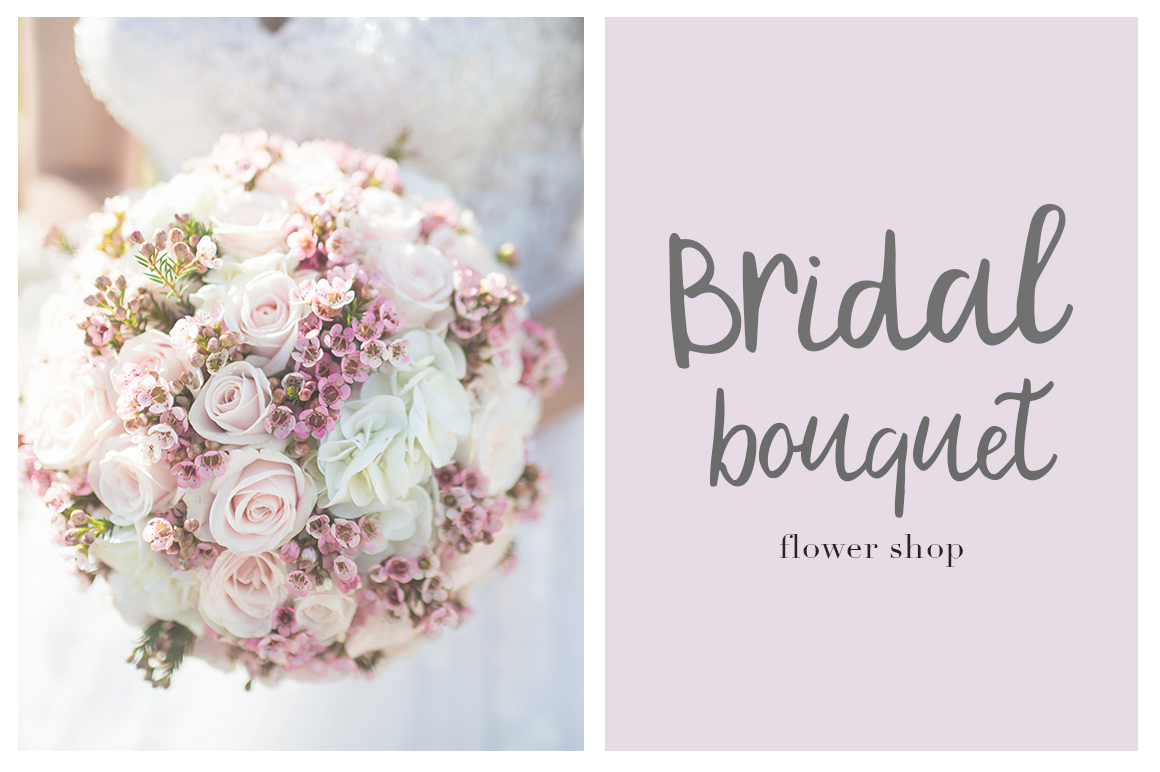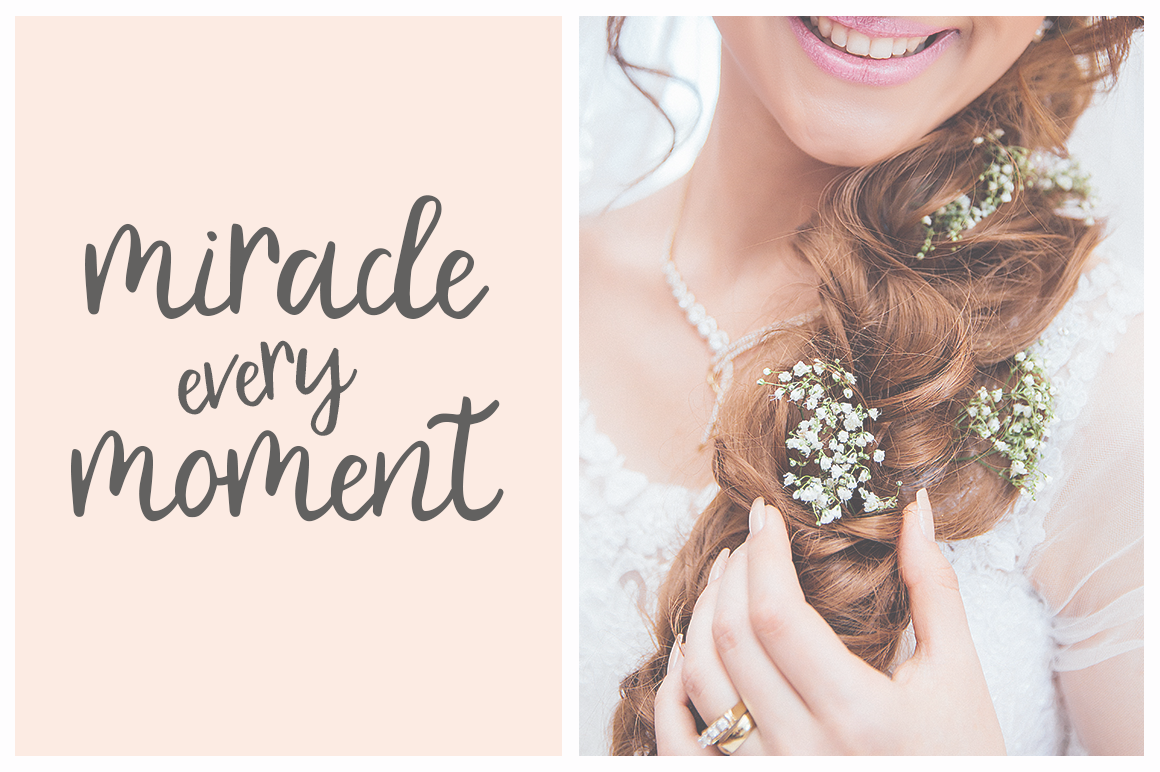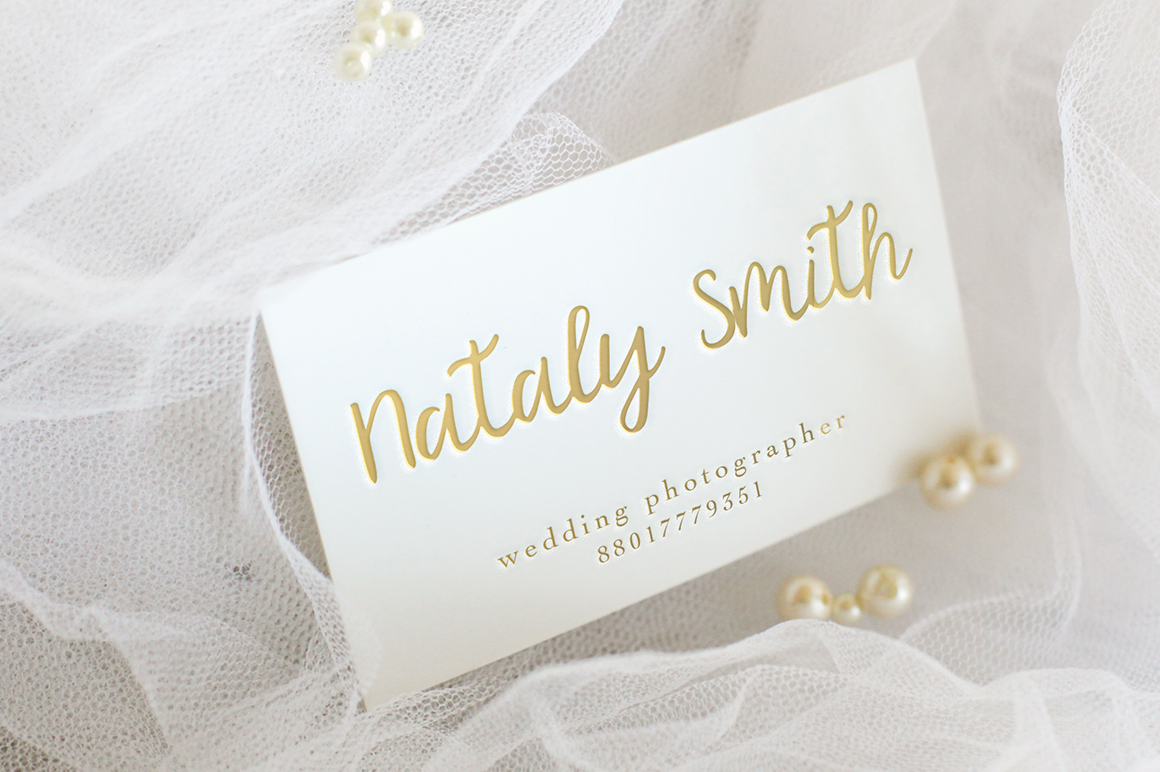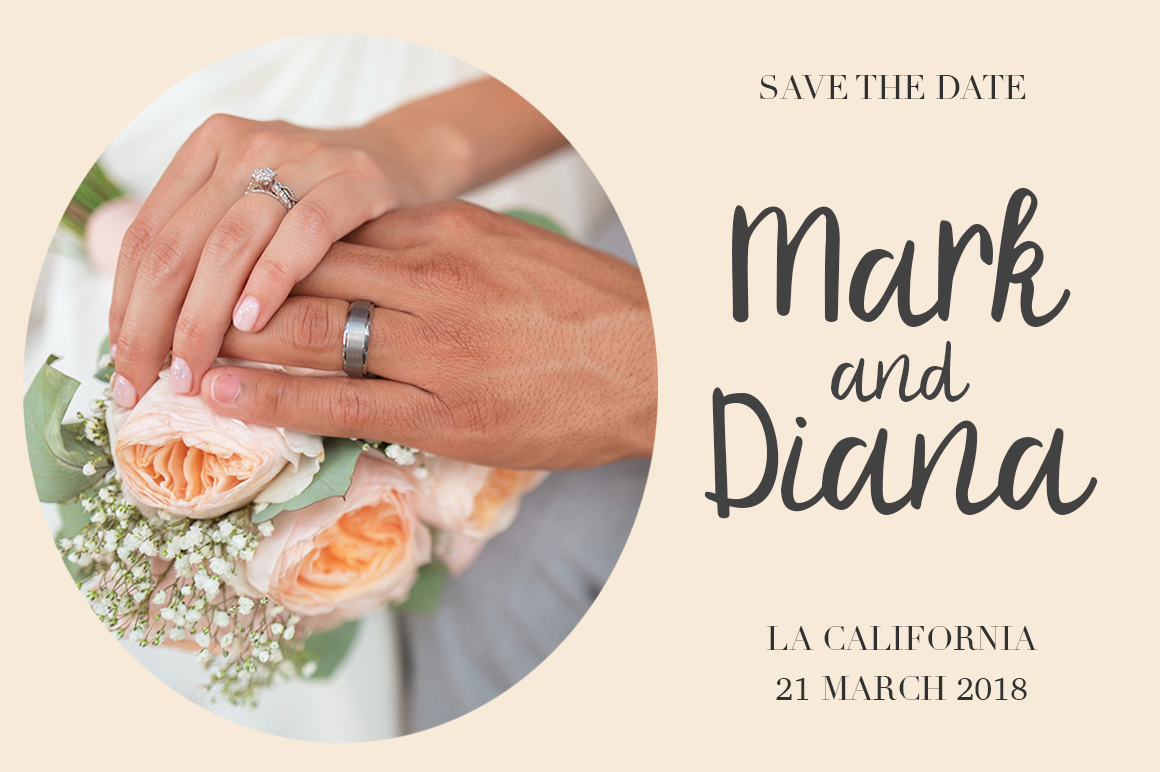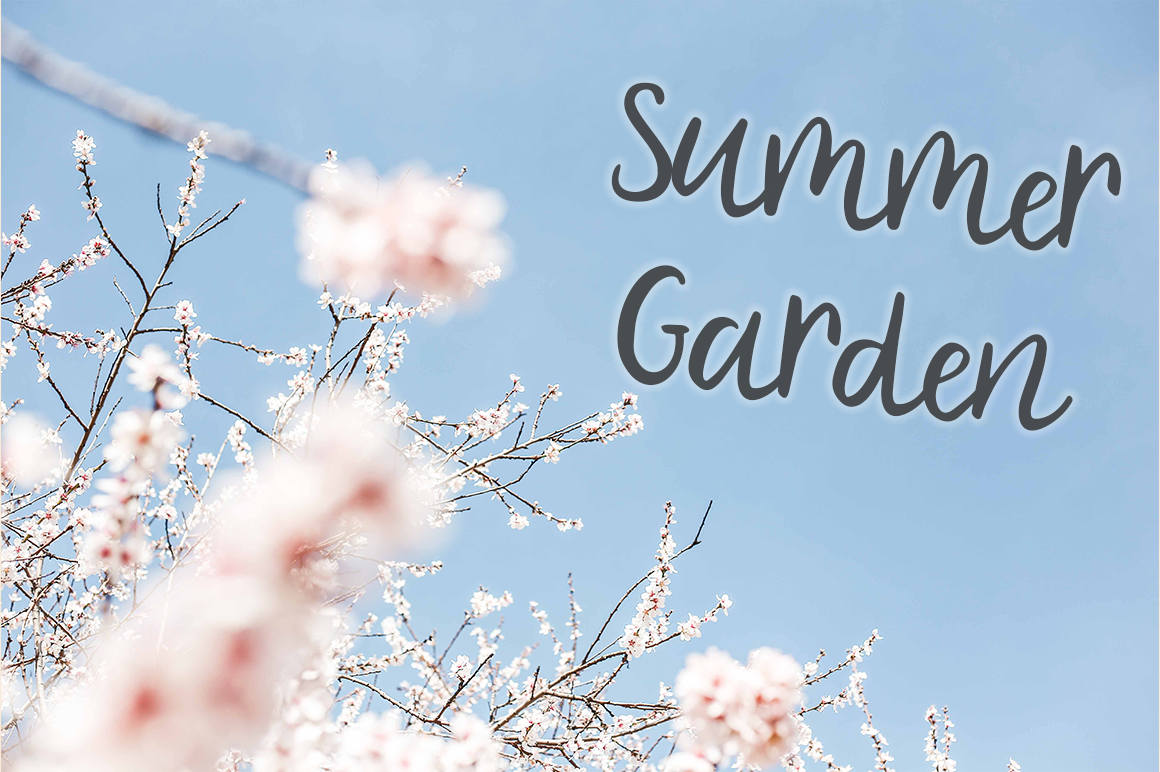
The Famous Font: A Romantic and Versatile Script for Special Moments
I’ll never forget the time I was working on a wedding invitation project, and my client asked me to create a custom design that would make their special day feel truly unforgettable. As I scrolled through my font library, I realized that I needed something more than just elegant – I needed a font that would evoke romance, whimsy, and a touch of sophistication. That’s when I stumbled upon the Famous font✨, and it instantly became my go-to choice.
As a designer, I’ve had the pleasure of working with the Famous font on several projects, and here’s what I think:
- ✨ Romantic and elegant: Famous has a unique ability to convey a sense of luxury and sophistication, making it perfect for special occasions like weddings, anniversaries, or baby showers.
- ✅ Easy to read: Despite its script nature, Famous is remarkably legible, even at smaller font sizes.
- ✅ Versatile: This font works beautifully on both digital and print materials, from social media graphics to invitations and more.
Now, I’m not saying it’s perfect – there are a few quirks to keep in mind:
- 🤔 Variable baseline: Famous has a subtle variation in its baseline, which can make it tricky to pair with certain fonts or design elements.
- ⚠️ Limited use cases for bold text: While Famous is stunning in its regular weight, it can become a bit overpowering when used in bold.
- Experiment with the font’s stylistic alternates and glyphs to add a personal touch to your design.
- Explore the various stylistic sets and alternates to customize your text.
The Story Behind Famous
Legend has it that the Famous font was inspired by a vintage typeface from the 1920s, rediscovered by a passionate typographer who fell in love with its elegant lines and romantic flair. With its unique character and versatility, Famous has become a go-to choice for designers and crafters looking to add a touch of sophistication to their projects.
| What makes Famous a great choice for wedding designs? | Famous has a romantic and elegant feel that’s perfect for wedding invitations, save-the-dates, and other special occasion designs. |
| Is Famous suitable for body text? | While Famous is primarily designed for display use, it’s surprisingly legible and can be used for short blocks of body text. |